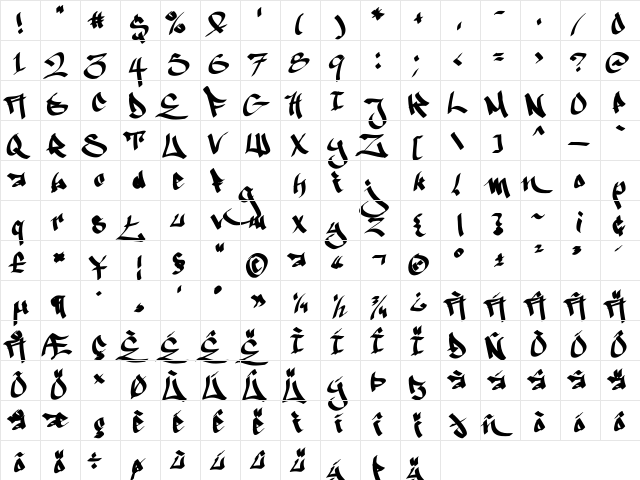
Ruthless Wreckin ONE Regular
Design Context for Ruthless Wreckin ONE Typeface
Ruthless Wreckin ONE is a composed and adaptable typeface that performs quietly and consistently across a wide range of design contexts.